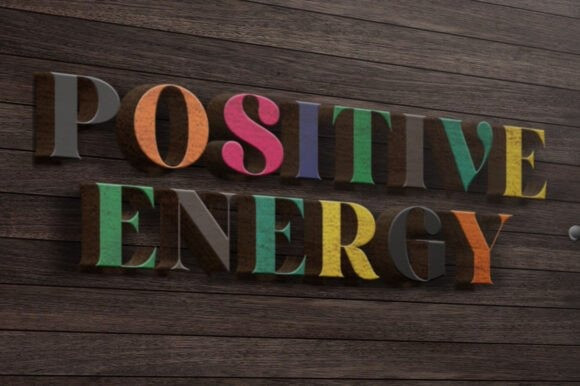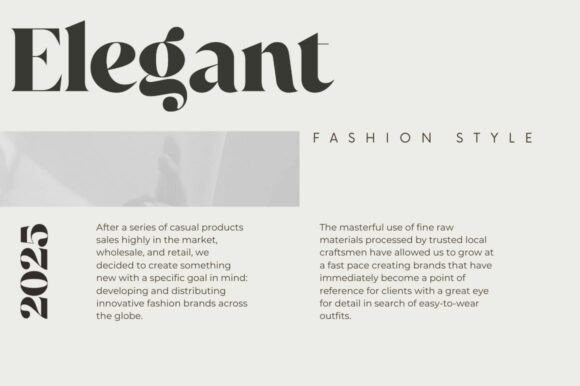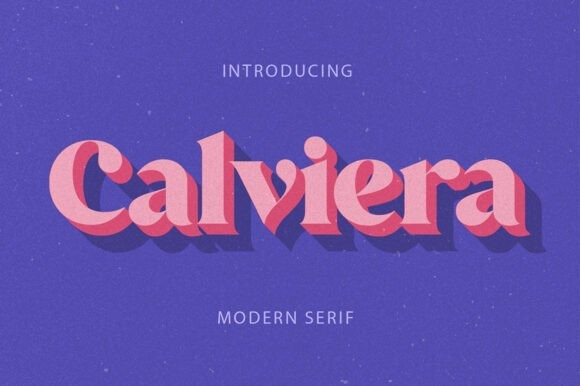
Calviera Font
Calviera Font is a timeless serif font designed to bring sophistication and versatility to your creative projects. With its refined letterforms and balanced proportions, Calviera blends modern elegance with classic charm, making it perfect for both editorial and branding use.
Whether you’re designing logos, magazines, packaging, or invitations, Calviera offers a professional look with a touch of personality. Its clean curves and sharp serifs ensure high readability while still maintaining an artistic edge.